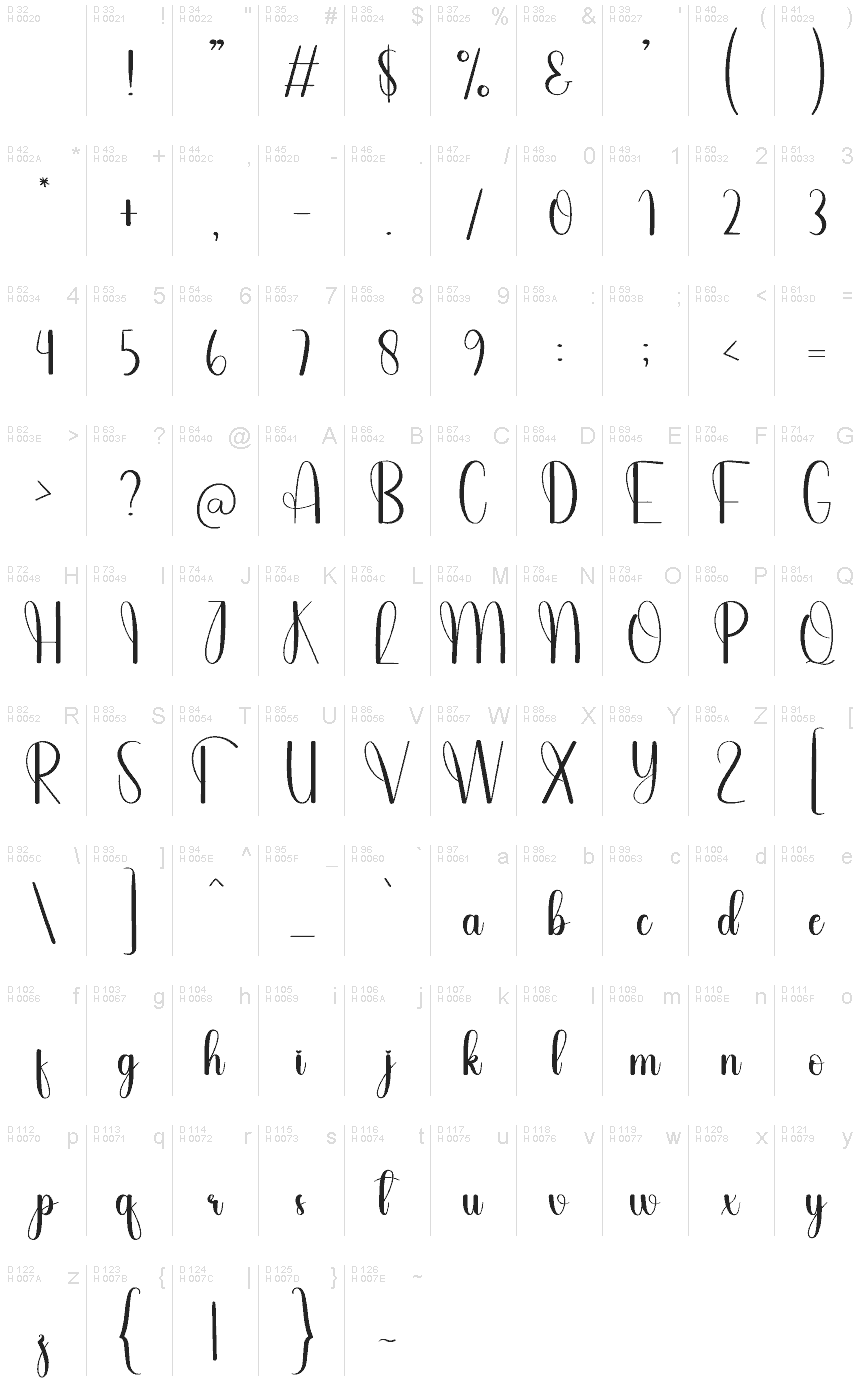
Springday
Springday font, by Andi Moz, is a refined handwritten free font that embodies elegance and romance. Its flowing, sophisticated design is perfect for adding a touch of class to any project. With decorative elements and a condensed style, this font adds charm without clutter.
Ideal for invitations, greeting cards, logos, branding projects, product packaging, quotes on photographs or social media posts – basically anywhere you want to add a personal touch. It’s also great for book covers and magazine layouts where elegance matters.